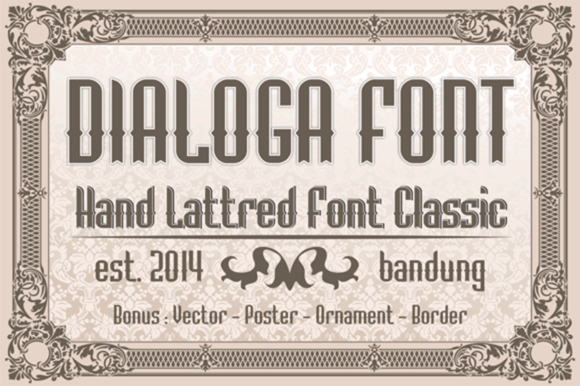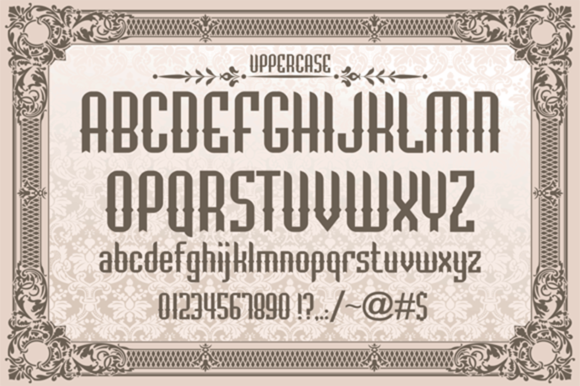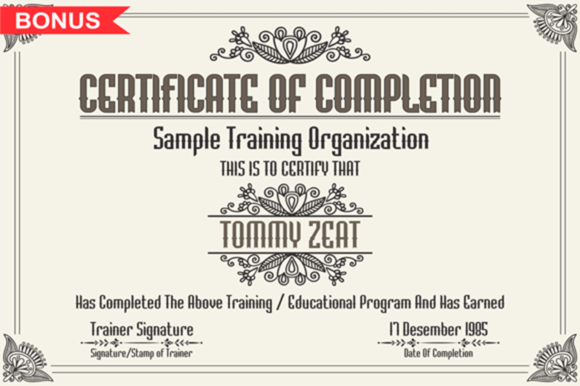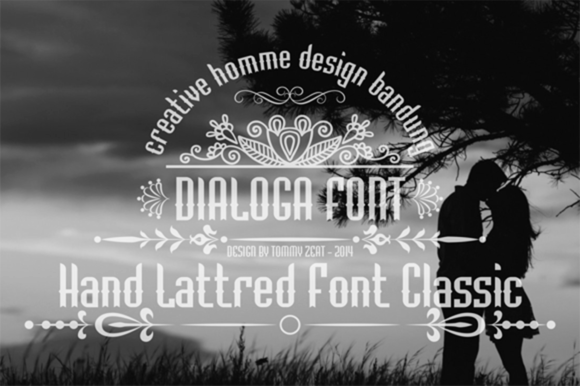
Introducing Dialoga Font: Elevate Your Designs with a Bold and Vintage Flair
Are you on the lookout for a font that can add a touch of elegance and sophistication to your designs? Look no further than Dialoga Font, a bold and vintage-styled display font that’s sure to become a true favorite among designers and crafters. With its unique blend of classic and modern elements, Dialoga Font has the potential to bring each of your creative ideas to the highest level.
What is Dialoga Font?
Dialoga Font is a carefully crafted display font that’s perfect for headlines, titles, and other design elements where you want to make a statement. Its bold and vintage-inspired design makes it ideal for use in a variety of projects, from branding and advertising to packaging and editorial design.
Key Features of Dialoga Font
- Bold and Vintage Style: Dialoga Font boasts a bold and vintage-inspired design that’s sure to grab attention.
- Elegant and Sophisticated: With its classic and modern elements, Dialoga Font exudes elegance and sophistication.
- Highly Versatile: Use Dialoga Font in a variety of projects, from branding and advertising to packaging and editorial design.
- Easy to Read: Despite its bold design, Dialoga Font is easy to read, making it perfect for use in headlines and titles.
Benefits of Using Dialoga Font
So why choose Dialoga Font for your next design project? Here are just a few benefits of using this amazing font:
- Adds Visual Interest: Dialoga Font’s bold and vintage-inspired design adds visual interest to any project.
- Enhances Brand Identity: Use Dialoga Font to create a unique and memorable brand identity that sets you apart from the competition.
- Increases Legibility: Despite its bold design, Dialoga Font is easy to read, making it perfect for use in headlines and titles.
- Flexible and Adaptable: Use Dialoga Font in a variety of projects, from digital designs to print materials.
How to Use Dialoga Font
Dialoga Font is easy to use and can be incorporated into a variety of design projects. Here are a few ideas to get you started:
- Branding and Advertising: Use Dialoga Font to create bold and eye-catching headlines and titles for your branding and advertising campaigns.
- Packaging Design: Add a touch of elegance and sophistication to your packaging designs with Dialoga Font.
- Editorial Design: Use Dialoga Font to create striking headlines and titles for your editorial designs, such as magazines and newspapers.
- Digital Design: Incorporate Dialoga Font into your digital designs, such as website headers and social media graphics.
Tips and Tricks for Getting the Most Out of Dialoga Font
Here are a few tips and tricks for getting the most out of Dialoga Font:
- Experiment with Different Sizes: Dialoga Font looks great in a variety of sizes, so don’t be afraid to experiment to find the perfect size for your project.
- Pair with Other Fonts: Dialoga Font pairs well with a variety of other fonts, so try pairing it with some of your favorite fonts to create a unique look.
- Use in Combination with Images: Dialoga Font looks great when used in combination with images, so try incorporating it into your designs to add an extra layer of visual interest.
In conclusion, Dialoga Font is a bold and vintage-styled display font that’s perfect for designers and crafters looking to add a touch of elegance and sophistication to their designs. With its highly versatile design and ease of use, Dialoga Font is sure to become a true favorite among designers. So why wait? Download Dialoga Font today and start elevating your designs to the highest level!